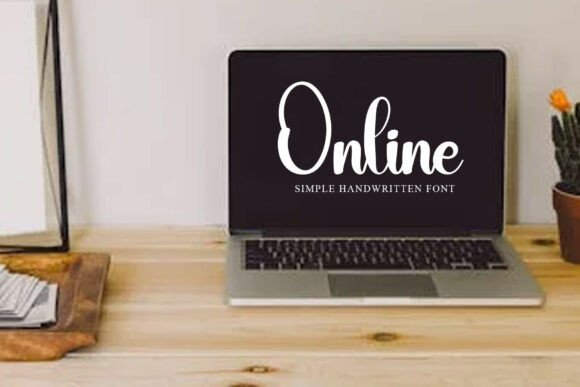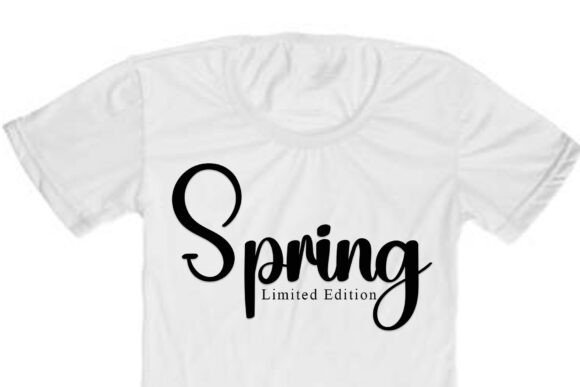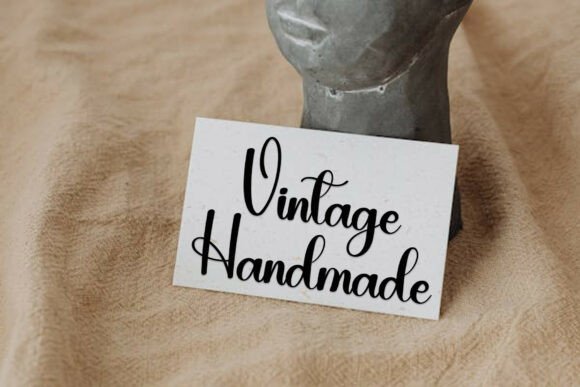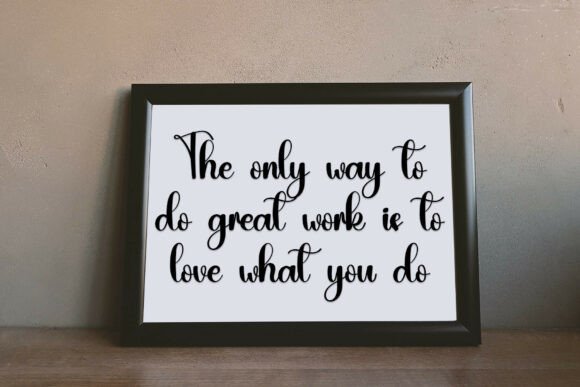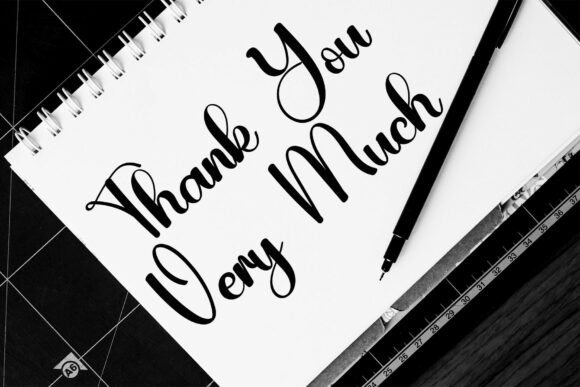
Introducing Happy Sunshine Font: Spread Joy and Cheer with this Festive Typeface
Are you looking for a font that embodies the spirit of the holiday season? Do you want to add a touch of charm and whimsy to your designs? Look no further than Happy Sunshine Font! This delightful typeface is perfect for designers and crafters who want to create joyful and nostalgic projects that capture the essence of the holidays.
A Festive and Happy Typeface
Happy Sunshine Font is a decorative typeface that is sure to bring a smile to anyone’s face. Its unique flair and festive elements make it the perfect choice for holiday-themed projects, such as greeting cards, gift labels, and party invitations. With Happy Sunshine Font, you can add a touch of magic to your designs and make them truly special.
Happy Sunshine Font is a versatile typeface that is perfect for a wide range of design projects. Whether you’re a professional designer or a crafter, this font is easy to use and can be incorporated into your projects with ease. The font is PUA coded, which means you can access all the amazing glyphs and ligatures easily, making it simple to create beautiful and intricate designs.
Key Features of Happy Sunshine Font
- Festive and decorative elements: Happy Sunshine Font features decorative elements that are sure to add a touch of cheer to your designs.
- Unique flair: This typeface has a unique and distinctive style that sets it apart from other fonts.
- PUA coded: With PUA coding, you can easily access all the glyphs and ligatures, making it simple to create intricate designs.
- Perfect for holiday-themed projects: Happy Sunshine Font is ideal for greeting cards, gift labels, party invitations, and other holiday-themed projects.
Use Happy Sunshine Font for Your Holiday Projects
Happy Sunshine Font is perfect for a wide range of holiday projects, including:
- Greeting cards: Create beautiful and festive greeting cards that are sure to delight your friends and family.
- Gift labels: Add a touch of charm to your gifts with custom labels featuring Happy Sunshine Font.
- Party invitations: Create festive and fun party invitations that set the tone for a joyful celebration.
- Holiday-themed crafts: Use Happy Sunshine Font to add a touch of magic to your holiday-themed crafts, such as scrapbooking and paper crafting.
Why Choose Happy Sunshine Font?
There are many reasons why Happy Sunshine Font is the perfect choice for your holiday design projects. Here are just a few:
- High-quality design: This typeface is designed with high-quality and attention to detail, ensuring that your projects look professional and polished.
- Versatile: Happy Sunshine Font can be used for a wide range of design projects, from digital designs to print projects.
If you’re looking for a font that captures the spirit of the holiday season, look no further than Happy Sunshine Font. With its festive and decorative elements, unique flair, and PUA coding, this typeface is perfect for designers and crafters who want to create joyful and nostalgic projects. Whether you’re creating greeting cards, gift labels, or holiday-themed crafts, Happy Sunshine Font is sure to bring a touch of cheer and magic to your designs.